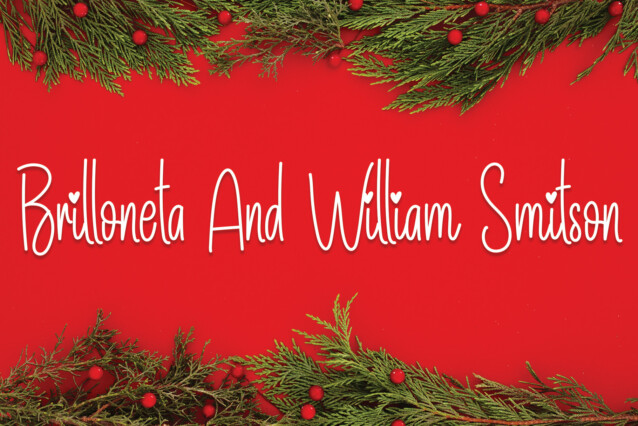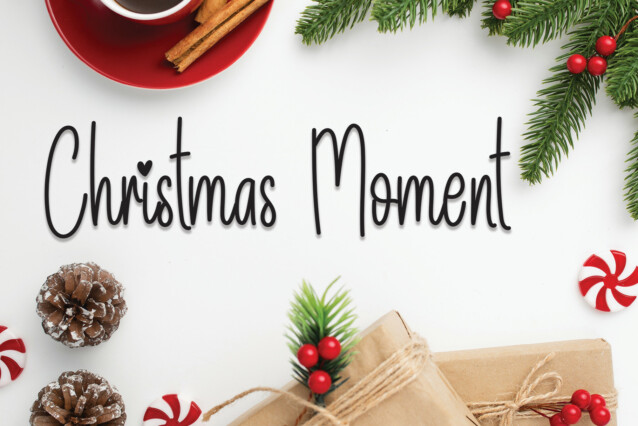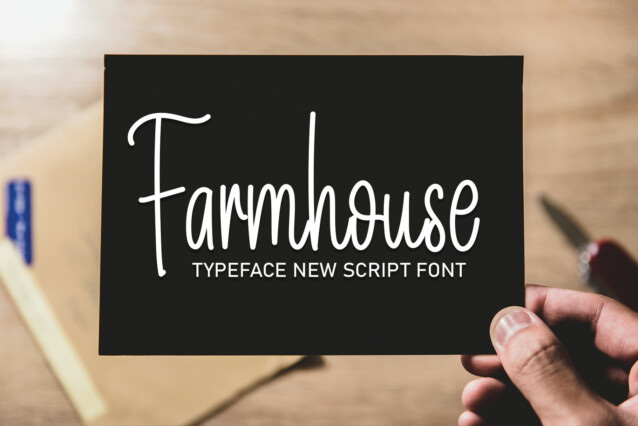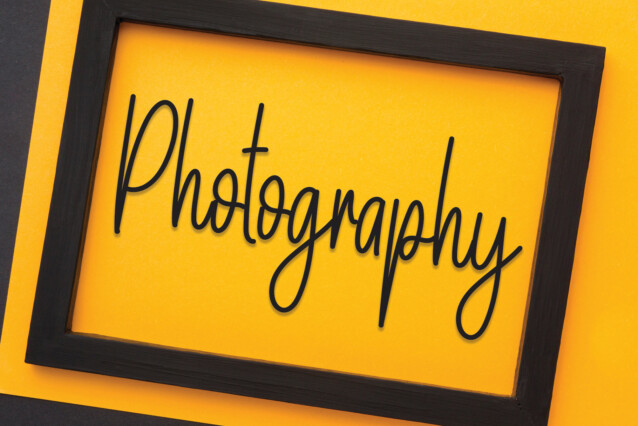
Blue Handwritten Font
Blue Handwritten Font is a lovely and timeless handwritten font. It is the best choice for creating eye-catching logos, branding, and quotes. Every letter has a unique and beautiful touch, which will make your design come alive!